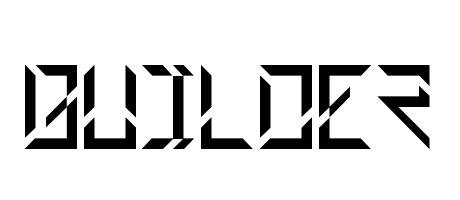
Builder
By Isaac K
BUILDER: A bold, geometric sans-serif font. Each letter is constructed from sharp, angular lines forming fragmented squares and rectangles, creating a fractured, almost broken, yet solid and powerful impression. It suggests strength, construction, and a modern, edgy aesthetic. The overall feel is industrial yet stylish, hinting at technology or architecture.